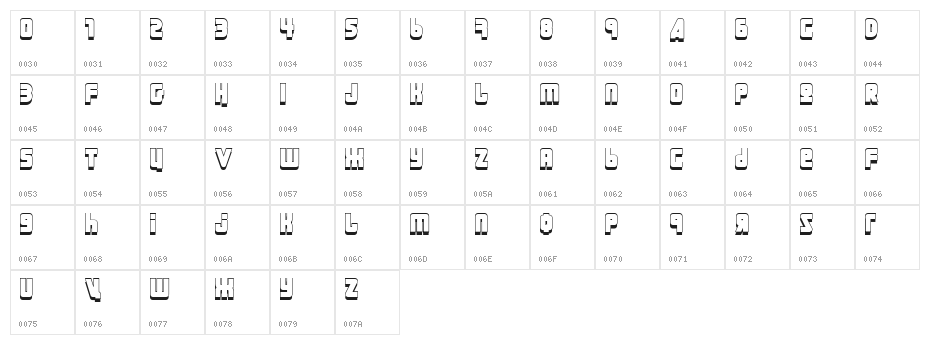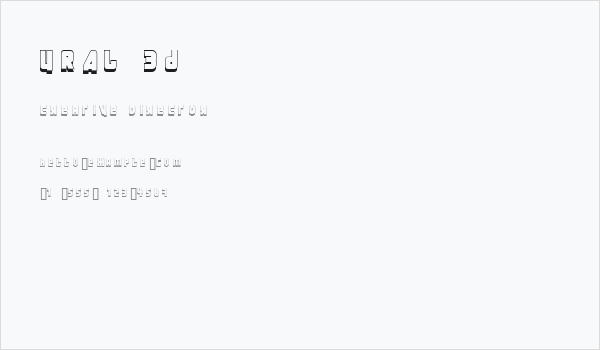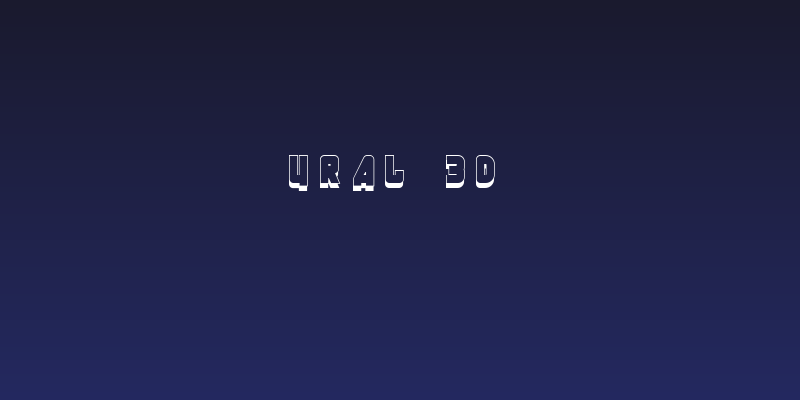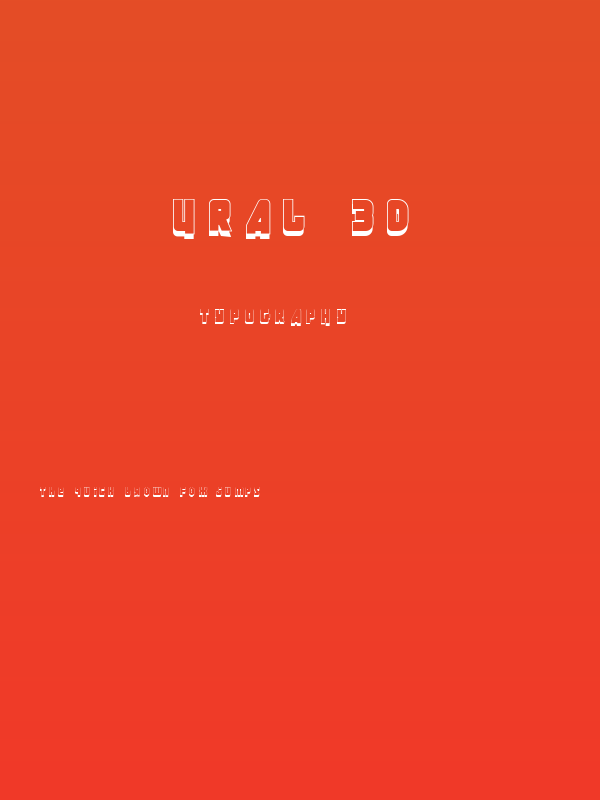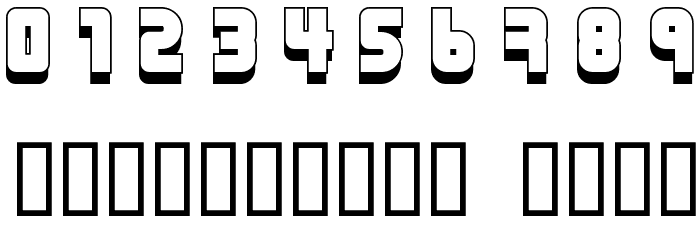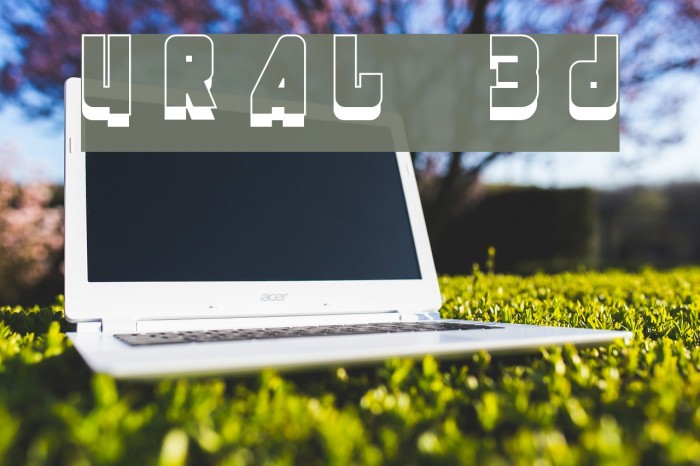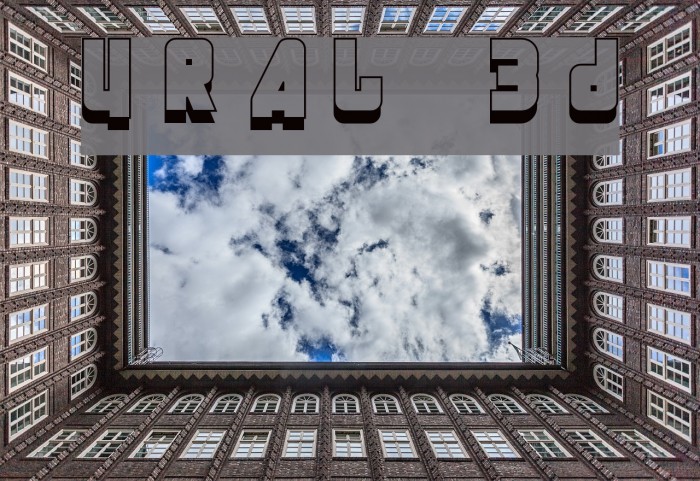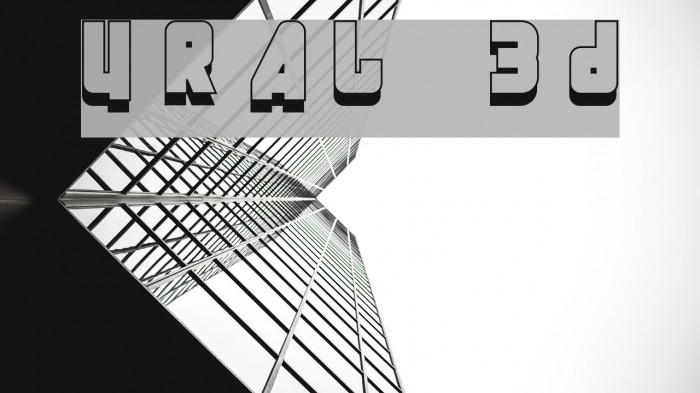
URAL 3d Font
URAL 3d Description
This font features a bold, three-dimensional style with a strong, blocky appearance. The letters are uppercase and lowercase, with a consistent shadow effect that gives them a distinct depth. The numbers and special characters follow the same design, maintaining uniformity across the set. The font's geometric shapes and thick lines make it highly legible and impactful, ideal for creating a strong visual presence. The characters are evenly spaced, enhancing readability while maintaining a cohesive look. The overall style is modern and dynamic, suitable for projects that require a bold statement.
| Proposed Projects | Ideal for posters, headlines, logos, and any design needing a strong, impactful font. |